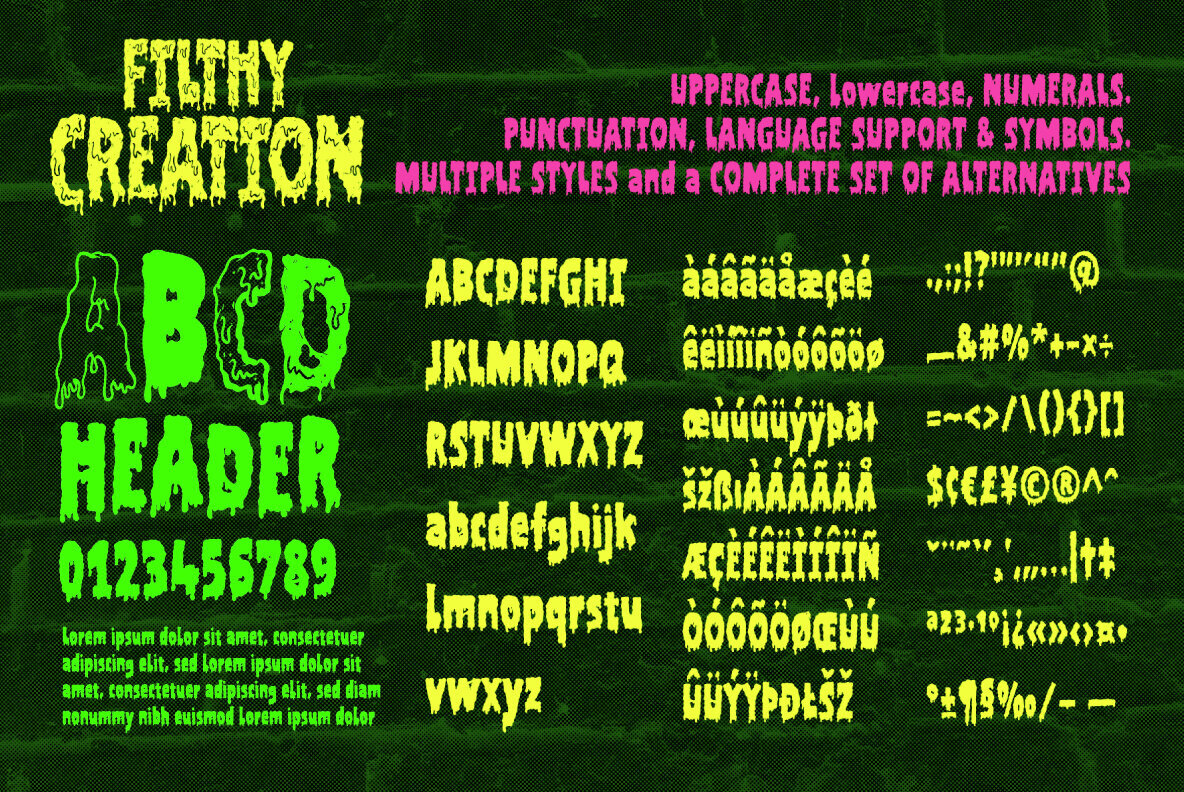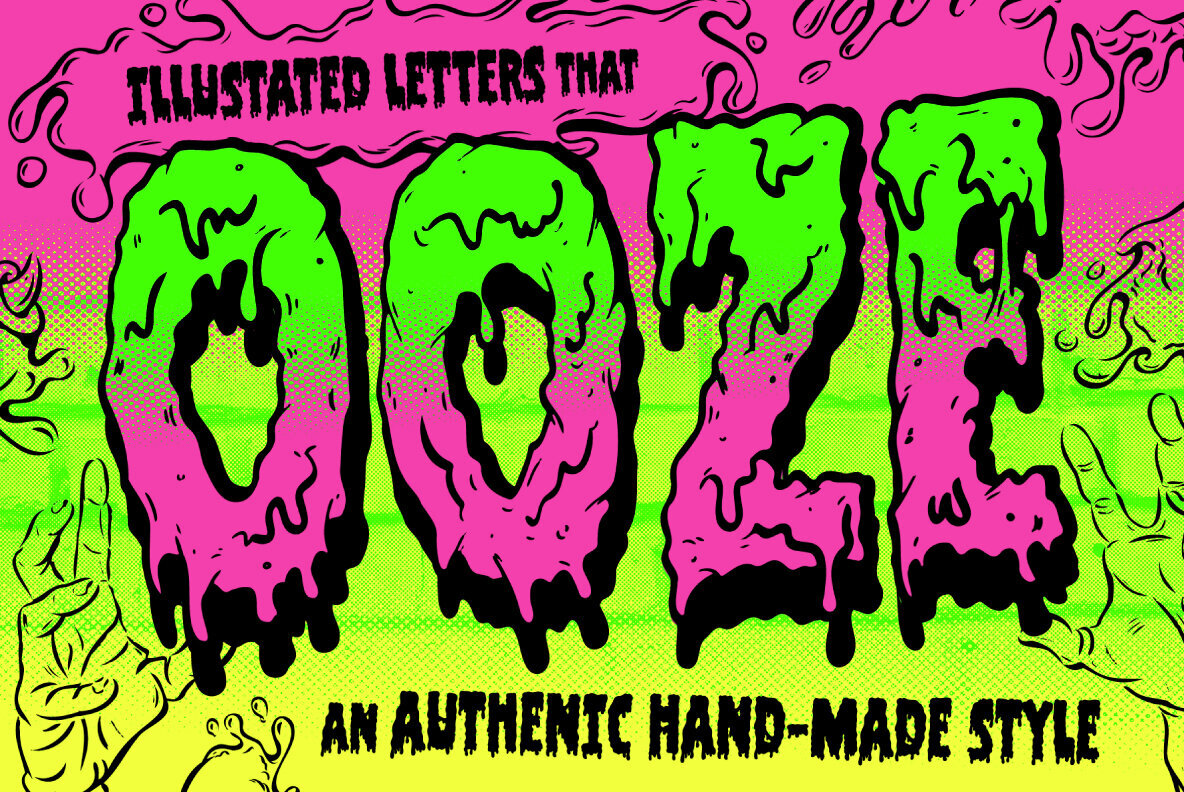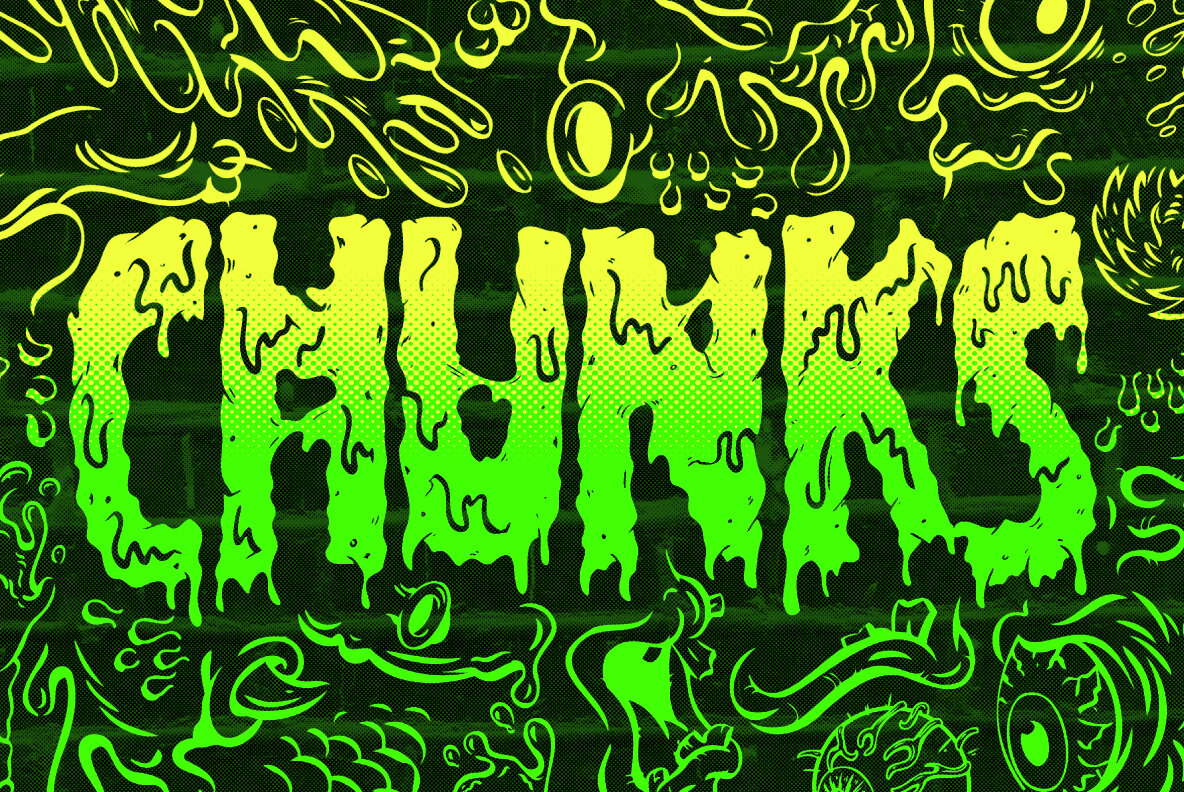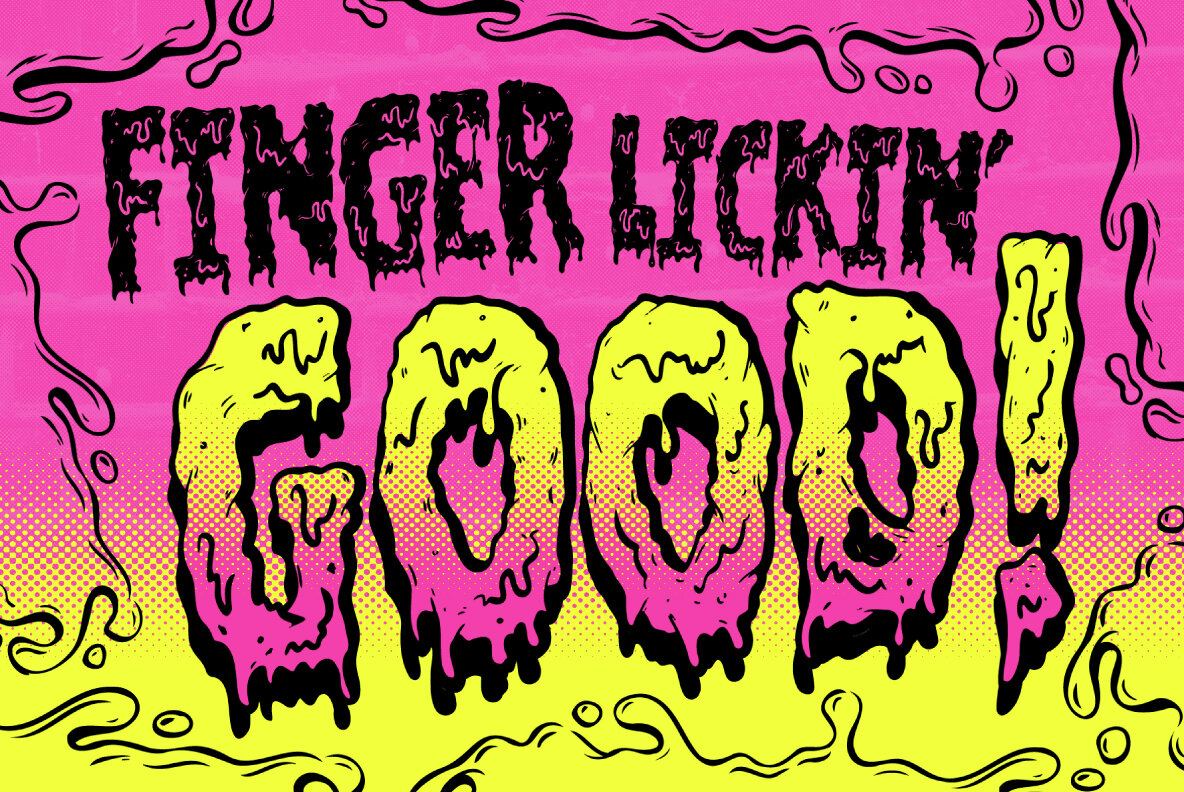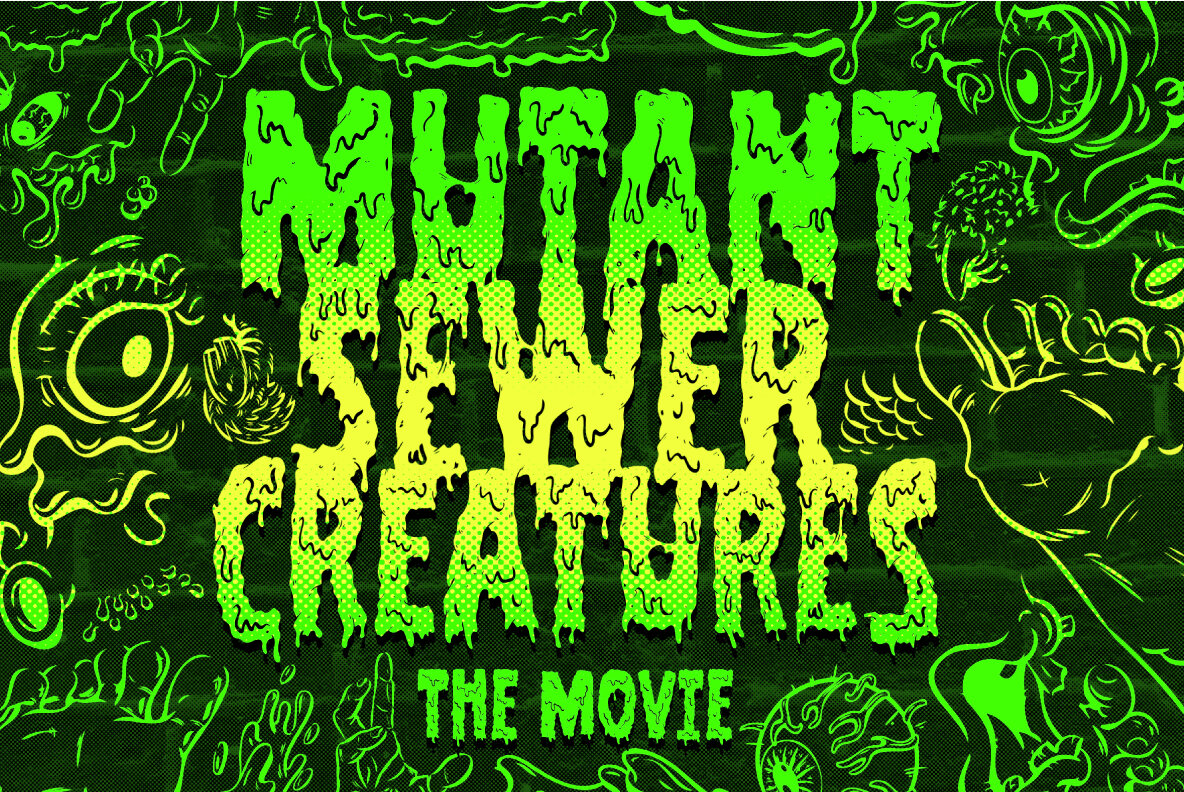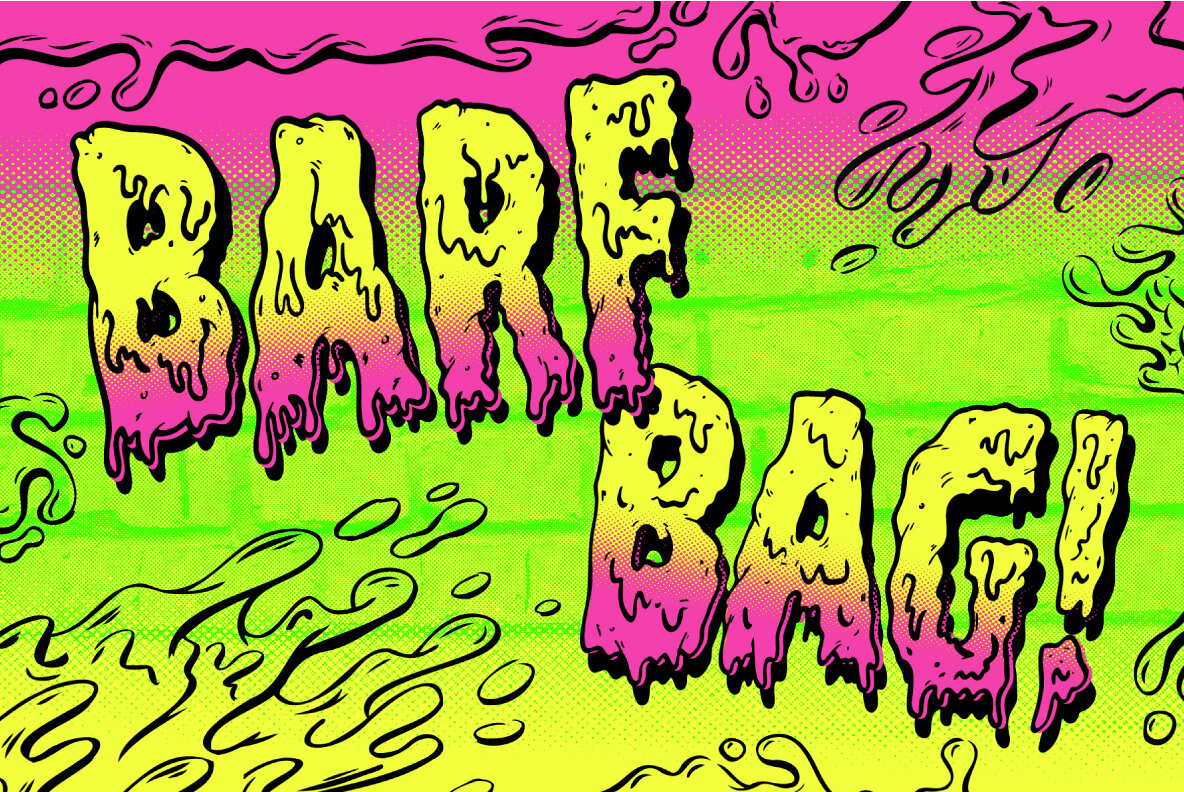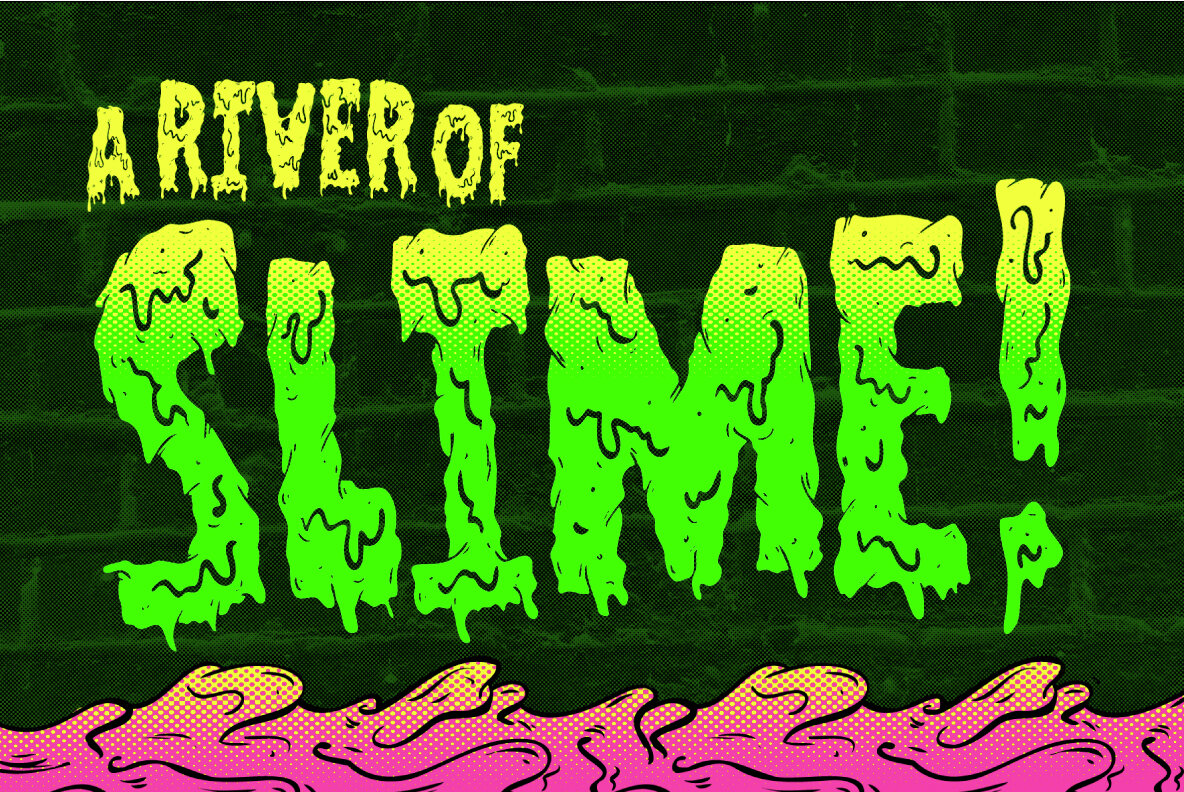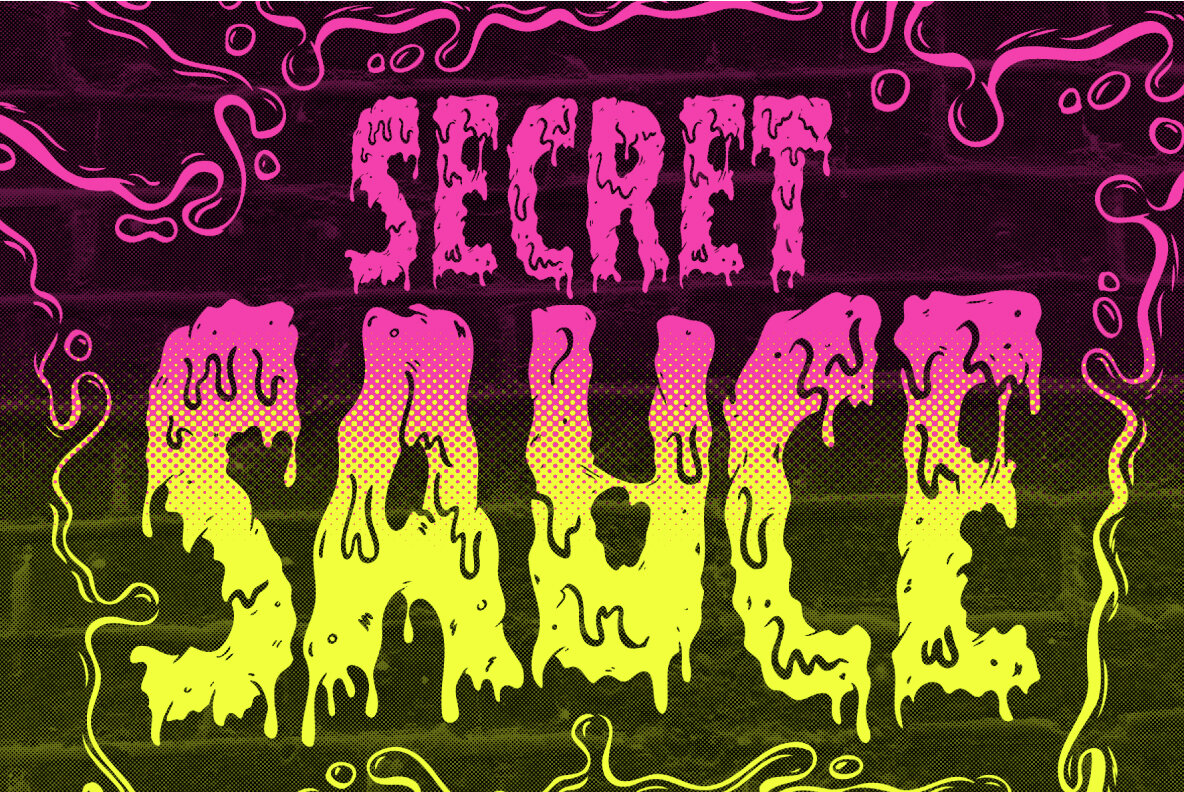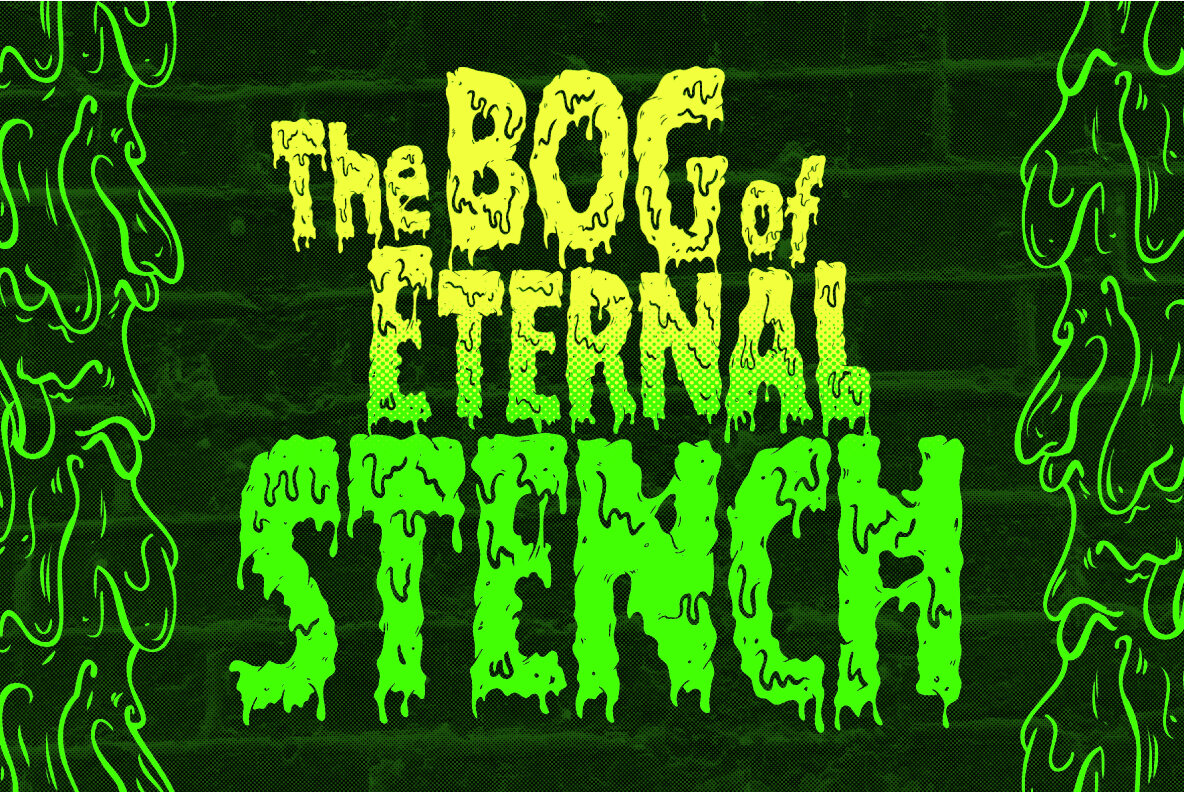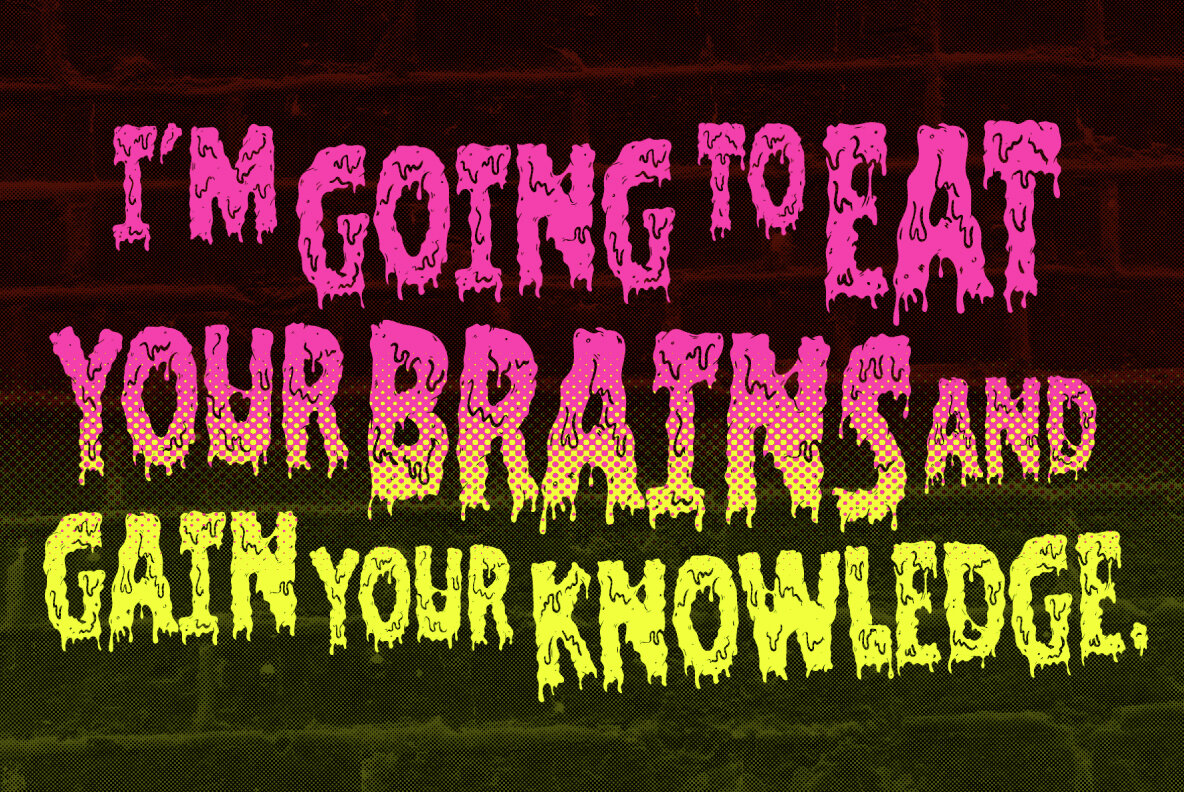
Filthy Creation Font
Creeping off my ink-drenched drawing board, these illustrated slime fonts offer designers a unique set of diabolical tools for use in their gruesome creations. The five hand-drawn font styles are reminiscent of the best in vintage horror comics, 80s trading cards, gross-out movies, paperbacks and Saturday morning cartoons. Each style comes with uppercase and lowercase characters, plus numerals, punctuation, language support and symbols. Added to this is a complete set of alternatives (no need to repeat those oo’s, tt’s and ee’s) and an extra collection of grotesque illustrations that’ll leave you reaching for the barf bag! When you need the most gory, disgusting and slimy looking titles, look no further than this Filthy Creation.Filthy Creation: An Outrageously Cartoonish Slime Font - Barf Bag Optional!